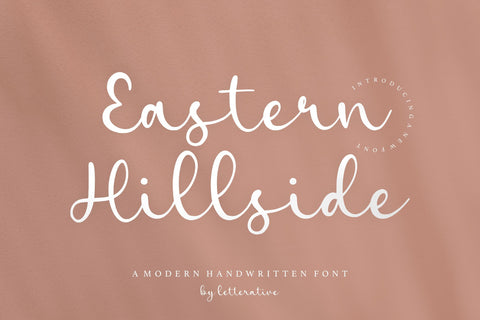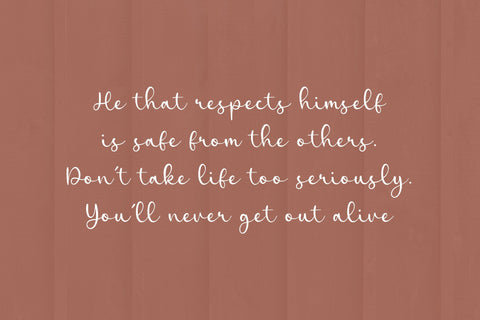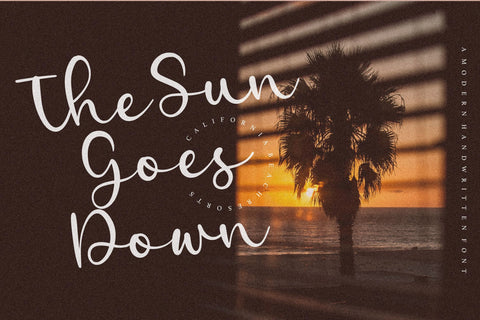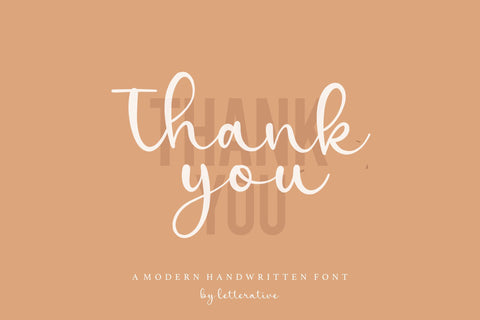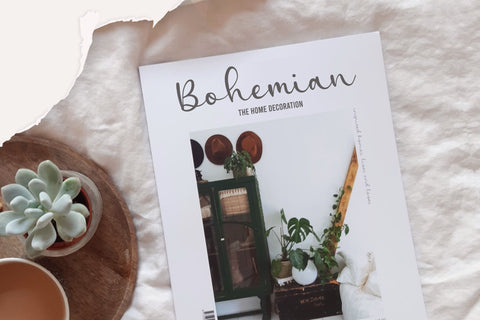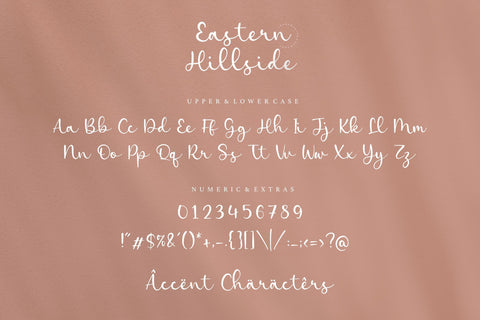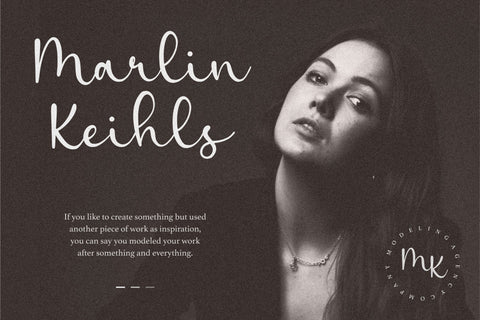
Eastern Hillside Modern Handwritten Font
Introducing by Letterative Studio : Eastern Hillside Font
Eastern Hillside is a Modern Handwritten Font
Eastern Hillside is a sweet and delicate handwritten font. Dainty and joyful, this font will be ideal for writing wedding invitations, cards or any other design that may need a romantic, personalized touch!
Eastern Hillside also multilingual support